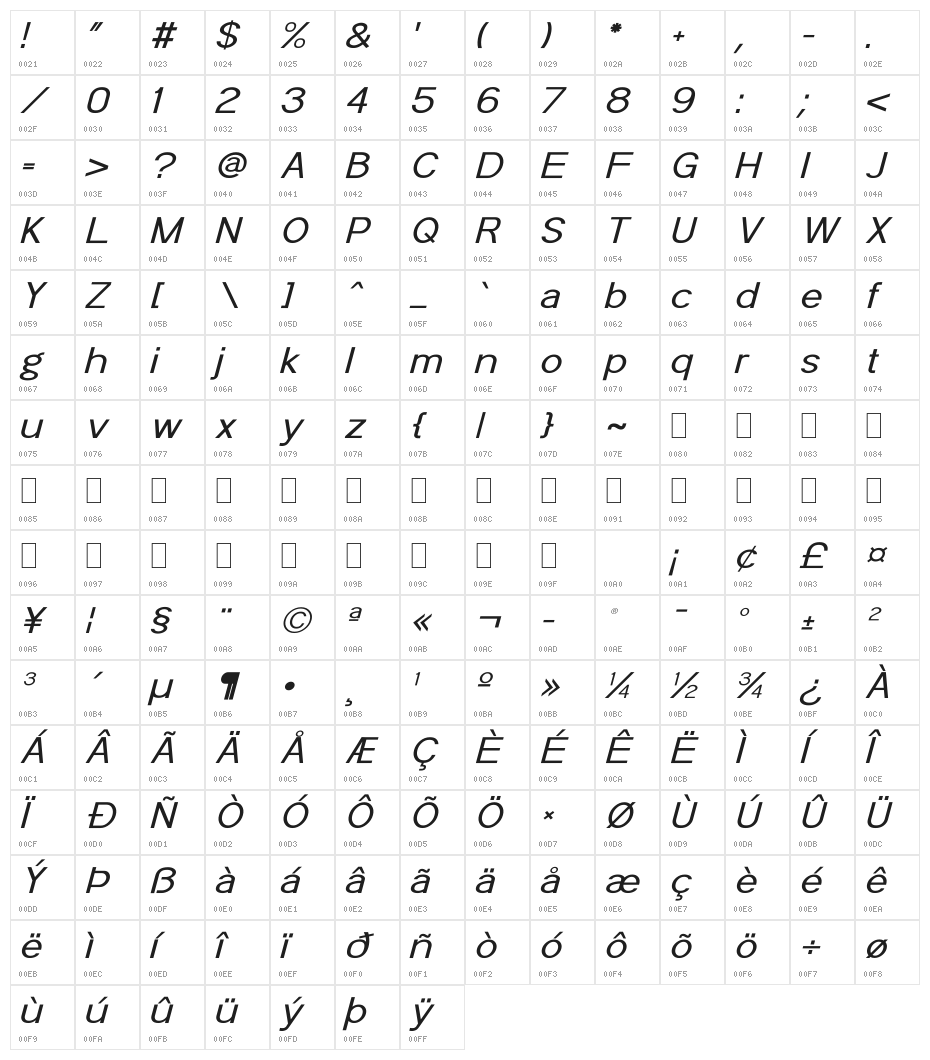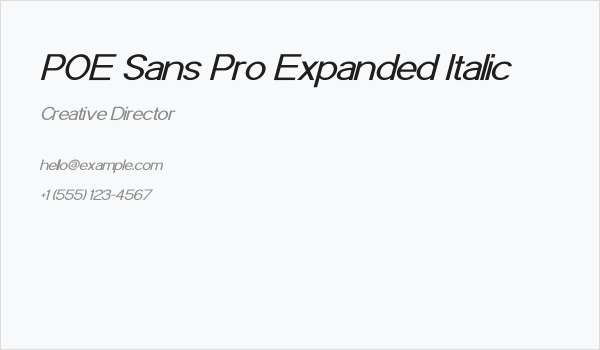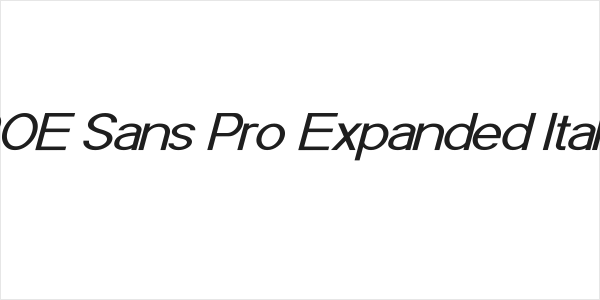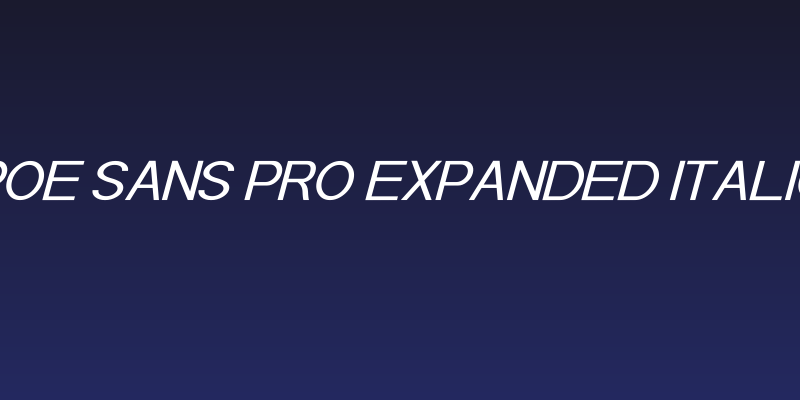
POE Sans Pro Expanded Italic Font
POE Sans Pro Expanded Italic Description
This typeface features a sleek, modern design with an expanded width and italic style, giving it a dynamic and forward-leaning appearance. The characters are sans-serif, providing a clean and contemporary look. The strokes are consistent in weight, offering a uniform appearance across all characters. The font's expanded nature allows for increased readability, making it suitable for various design applications. Its italic style adds a sense of motion and elegance, making it ideal for projects that require a touch of sophistication. The character spacing is normal, ensuring clarity and legibility even at smaller sizes. The font includes a full set of uppercase and lowercase letters, numerals, and a variety of special characters, making it versatile for different uses.
| Use Case | Headlines, Branding, Advertising |
| Proposed Projects | Ideal for branding, advertising, headlines, and digital media where a modern and elegant look is desired. |